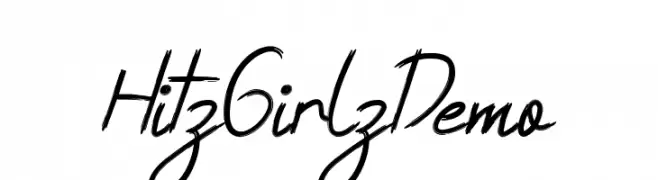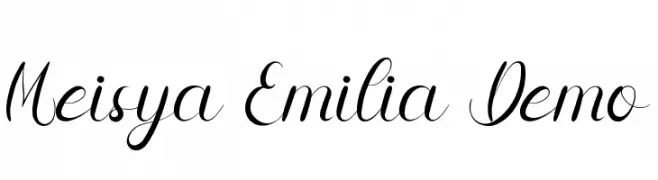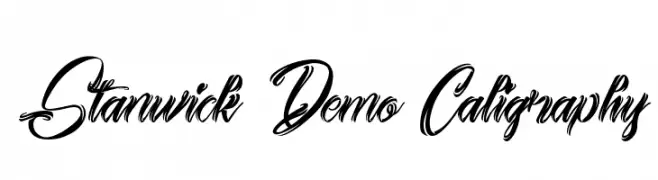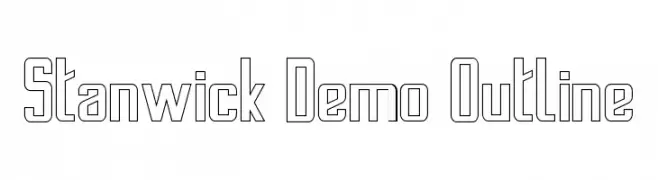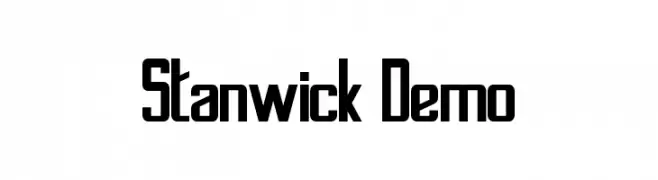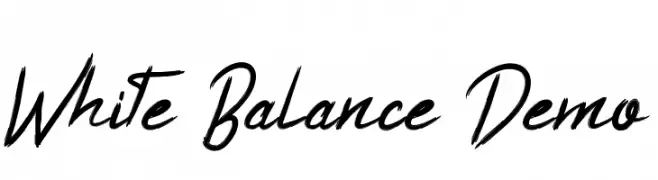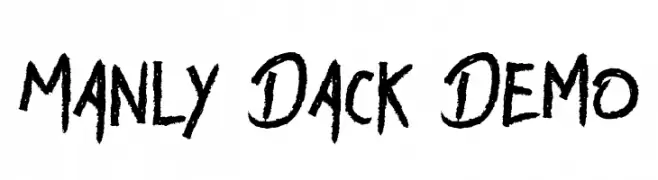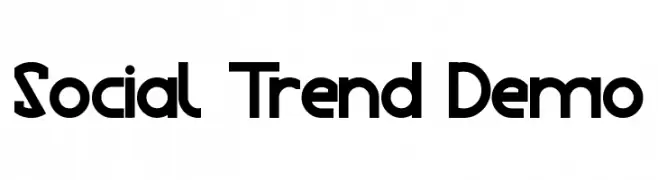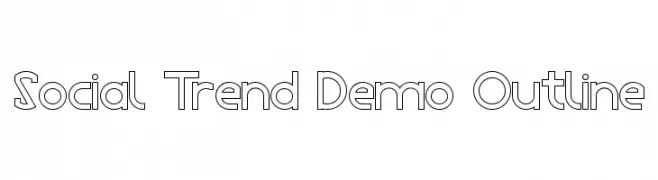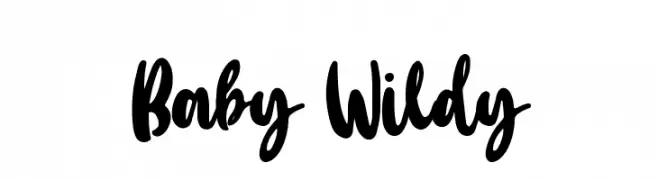
A lively, handwritten script font with a dynamic and flowing style.
An elegant, high-contrast cursive font with a classic calligraphic style.
A dynamic calligraphic font with elegant, flowing strokes and ornate details.
A geometric, outlined font with a modern and technical aesthetic.
A bold, geometric font with a modern and angular design.
An elegant script font with flowing, ornate swashes and high contrast.
A dynamic, cursive font with bold, sweeping strokes and a modern, artistic flair.
A bold, expressive hand-drawn font with dynamic, irregular strokes.
A bold, geometric font with a modern and assertive style.
A modern, geometric outline font with clean lines and a stylish, airy appearance.